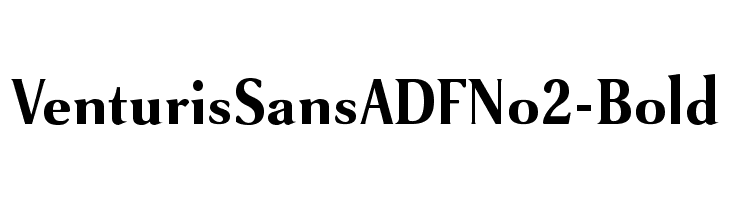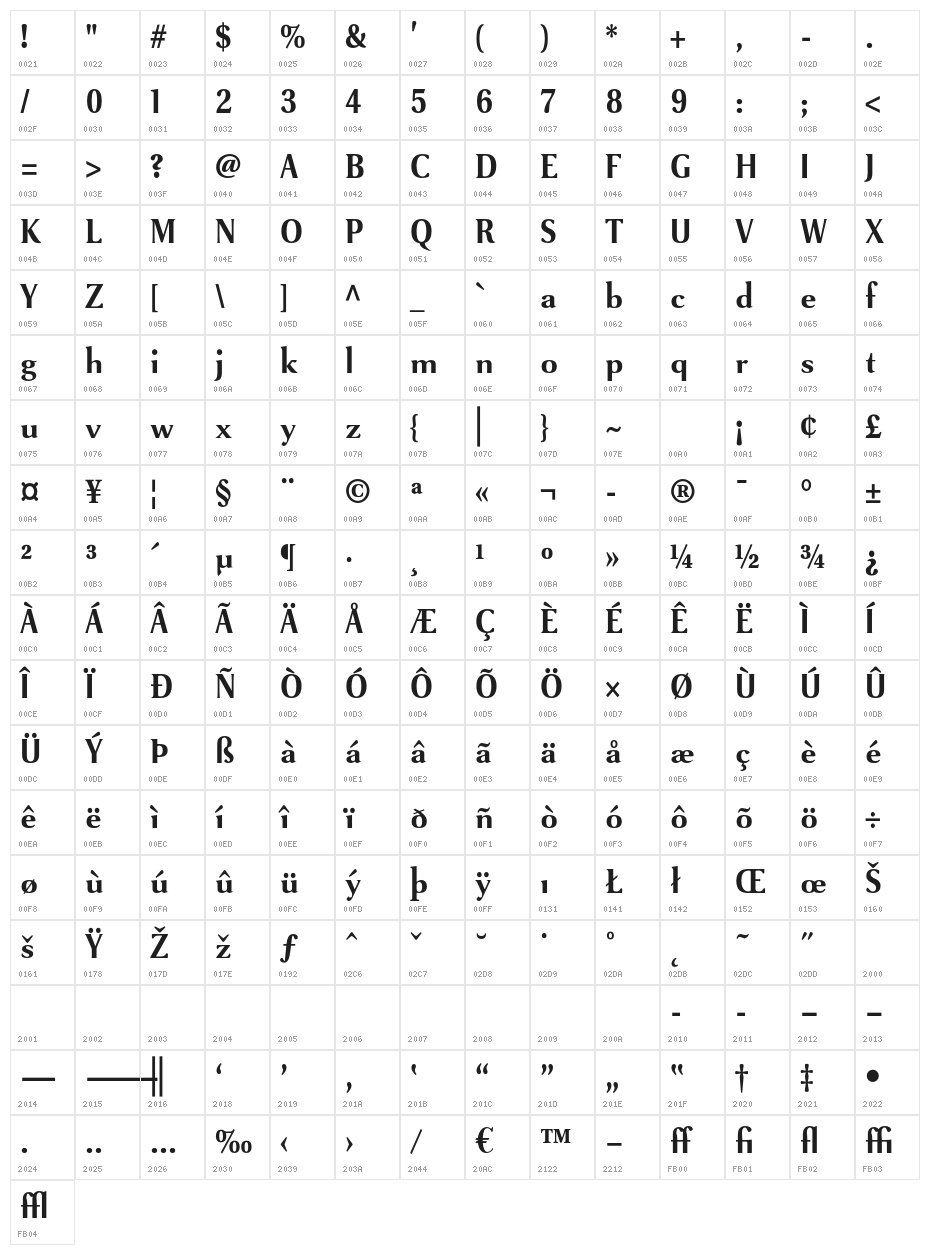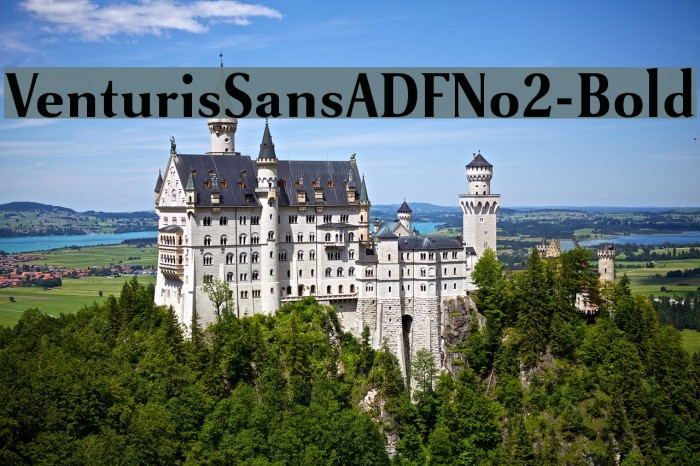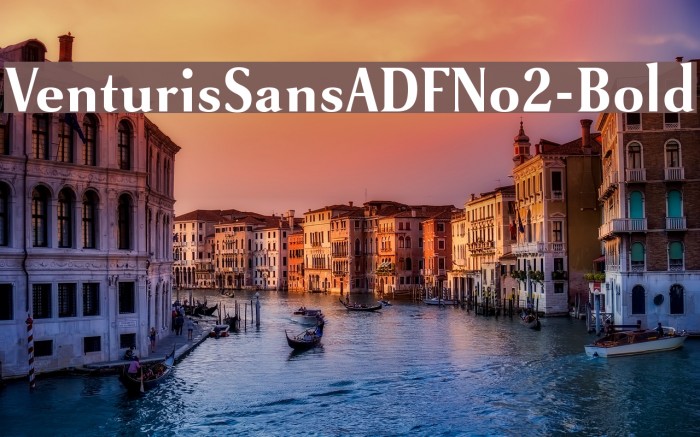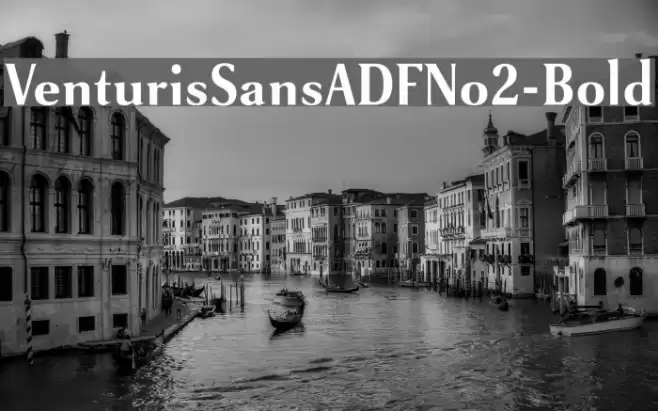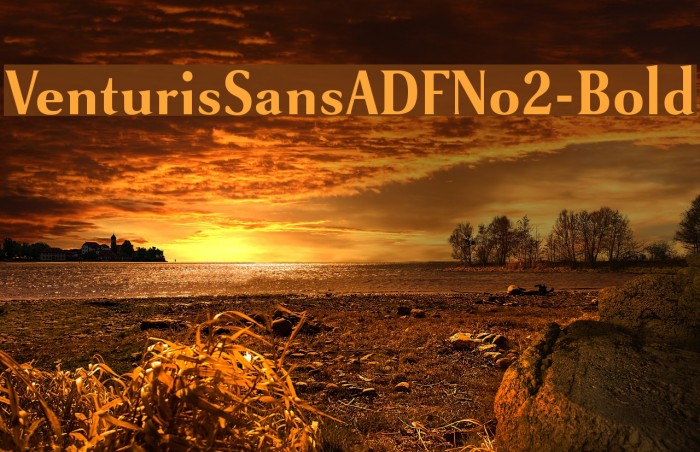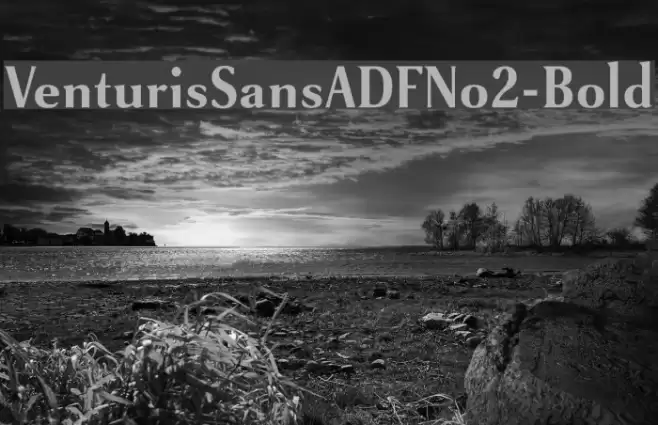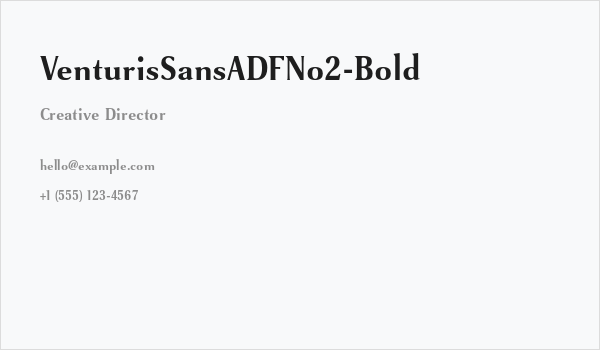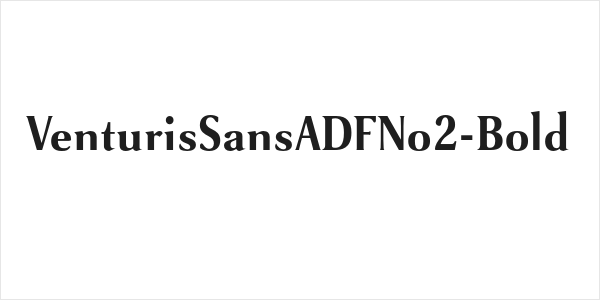
VenturisSansADFNo2-Bold Font
VenturisSansADFNo2-Bold Description
This font exhibits a strong and authoritative presence with its bold and clear letterforms. The uppercase letters are well-proportioned, featuring slightly flared serifs that add a touch of elegance. The lowercase letters maintain a consistent weight, ensuring readability while retaining a classic appeal. The numerals are robust and align well with the overall design, making them suitable for various applications. Special characters are distinct and harmonize with the alphabet, enhancing the font's versatility. The overall design is balanced, making it suitable for both digital and print media.
| Use Case | Headlines, Logos, Editorial design |
| Proposed Projects | Ideal for headlines, branding, editorial design, and signage. |